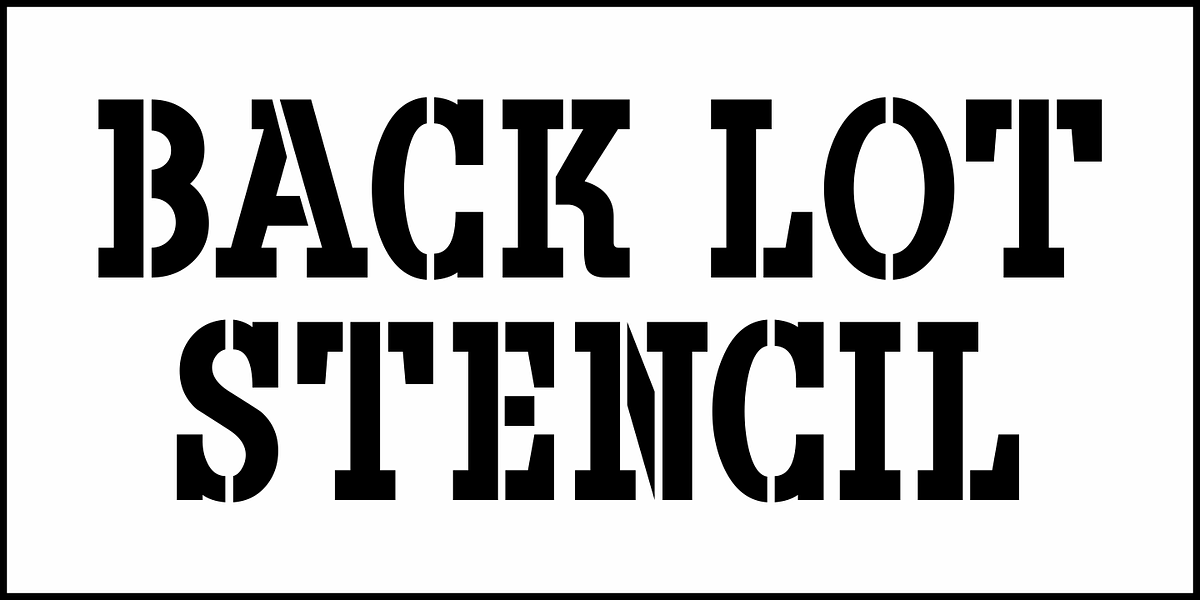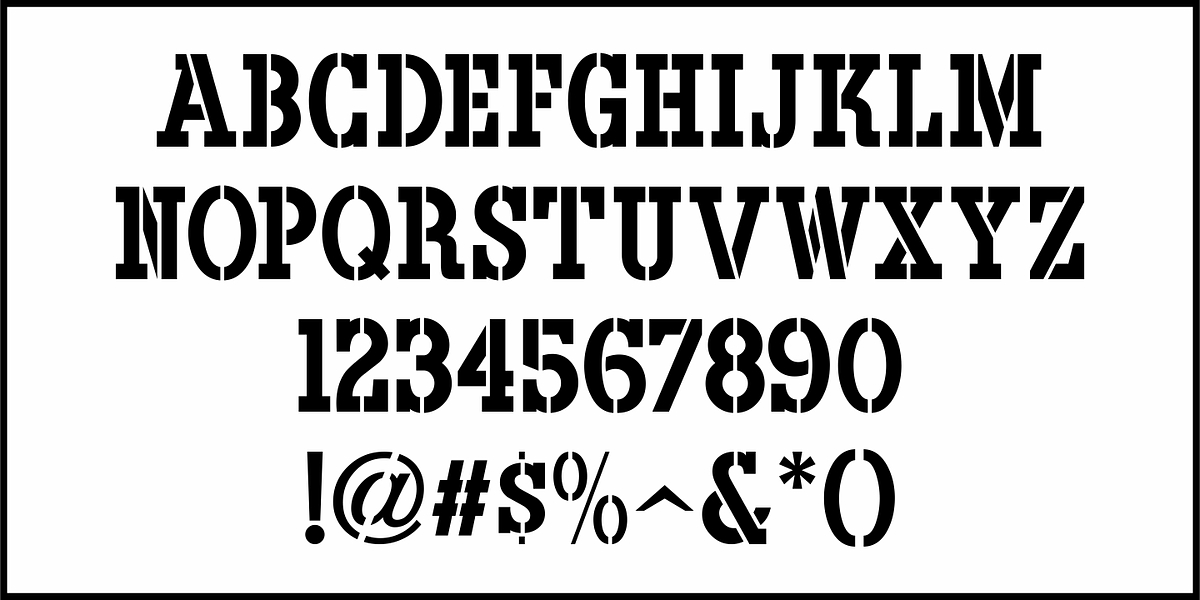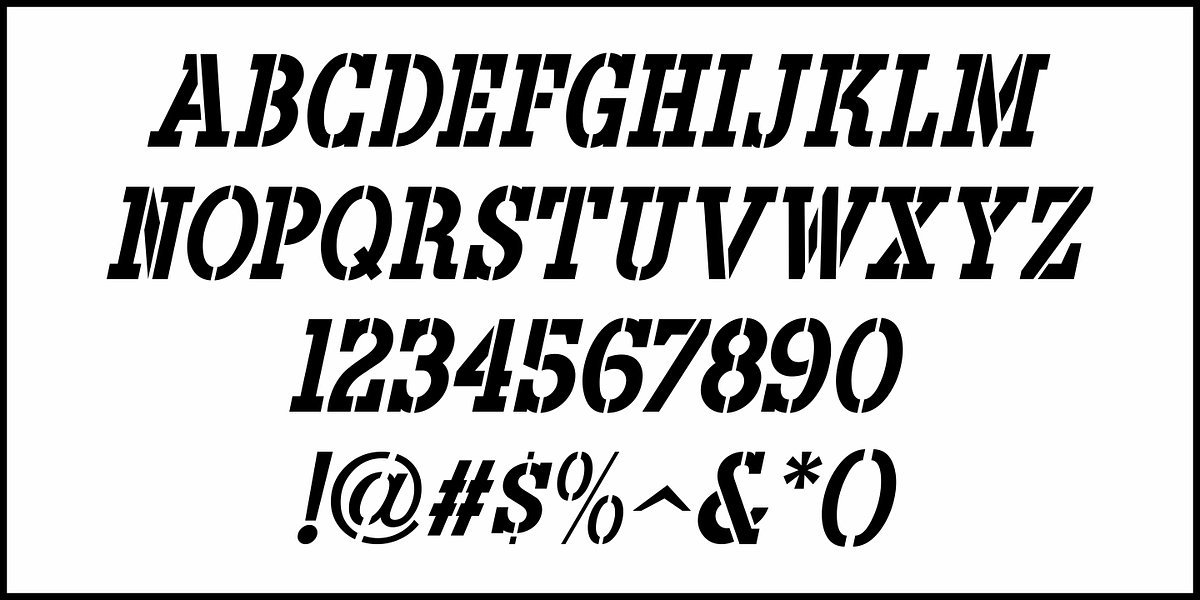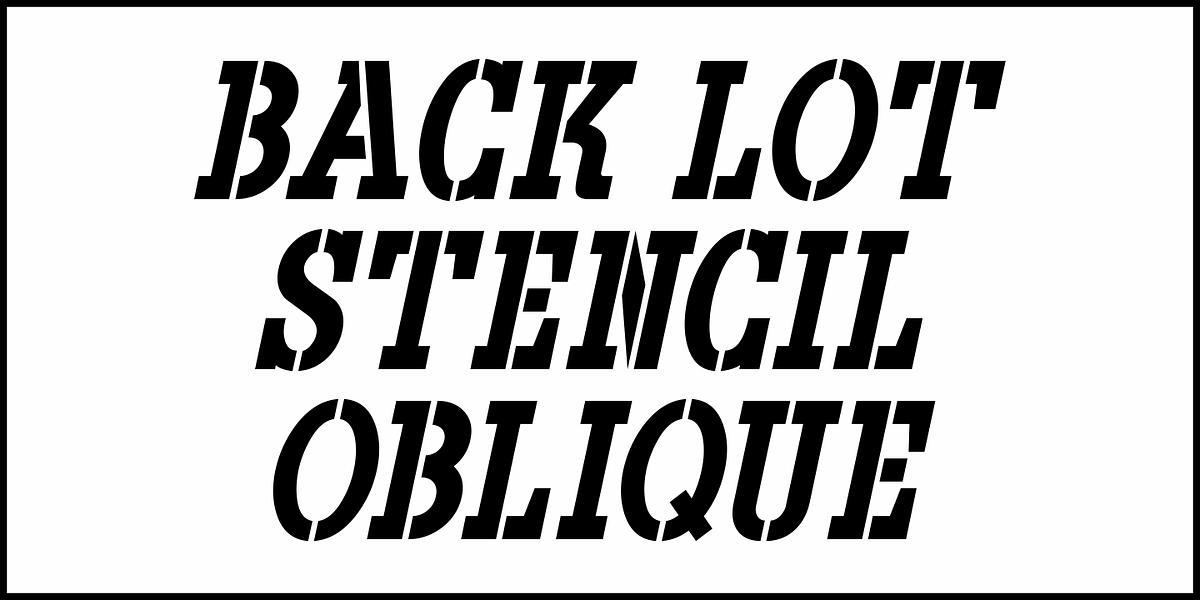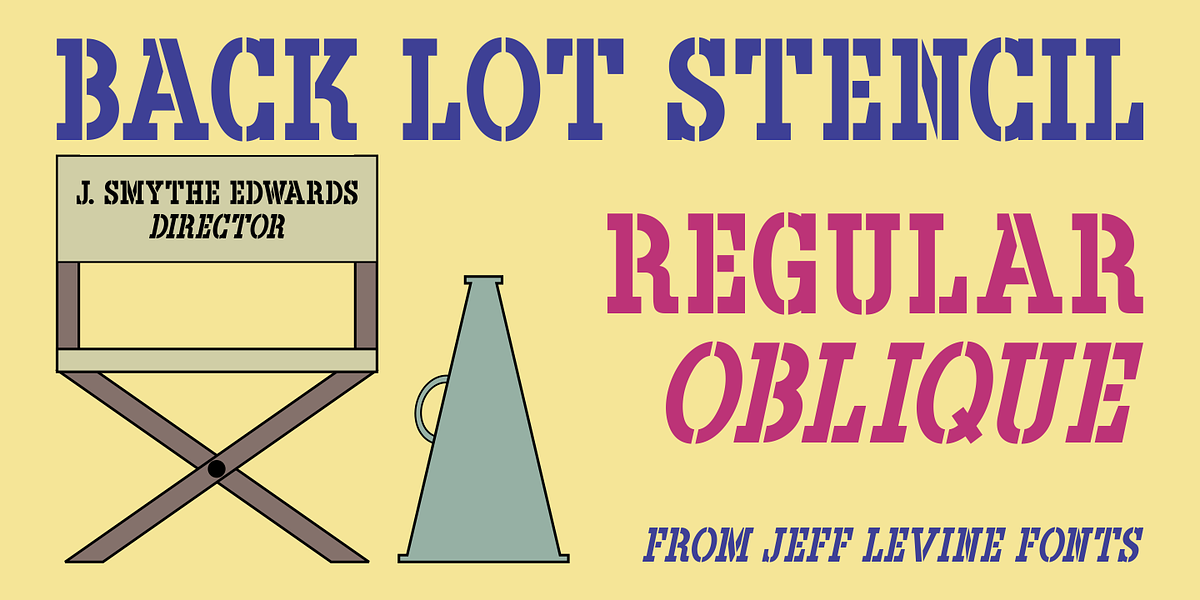
Back Lot Stencil JNL
Back Lot Stencil JNL is a hand lettered slab serif stencil design based on the titles and credits from the 1954 film “Human Desire” and is available in both regular and oblique versions.